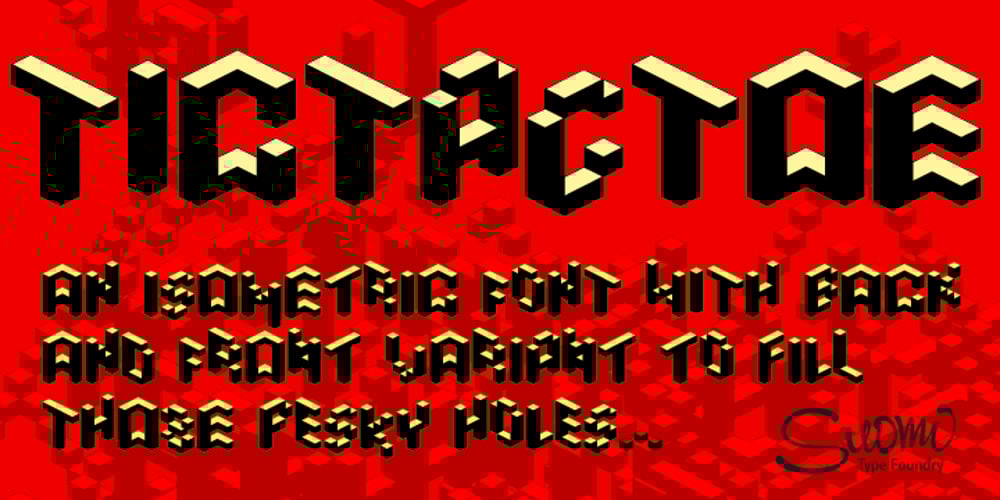
Tictac Font Family was designed by Tomi Haaparanta and published by Suomi. Tictac contains 4 styles and family package options. TicTacToe is a two-tone font with axiometric proportions. It is all capitals, but upper and lower case characters differ to achieve more versatile results. It has two variants, open and all closed variant in back, so it leaves no holes behind it.